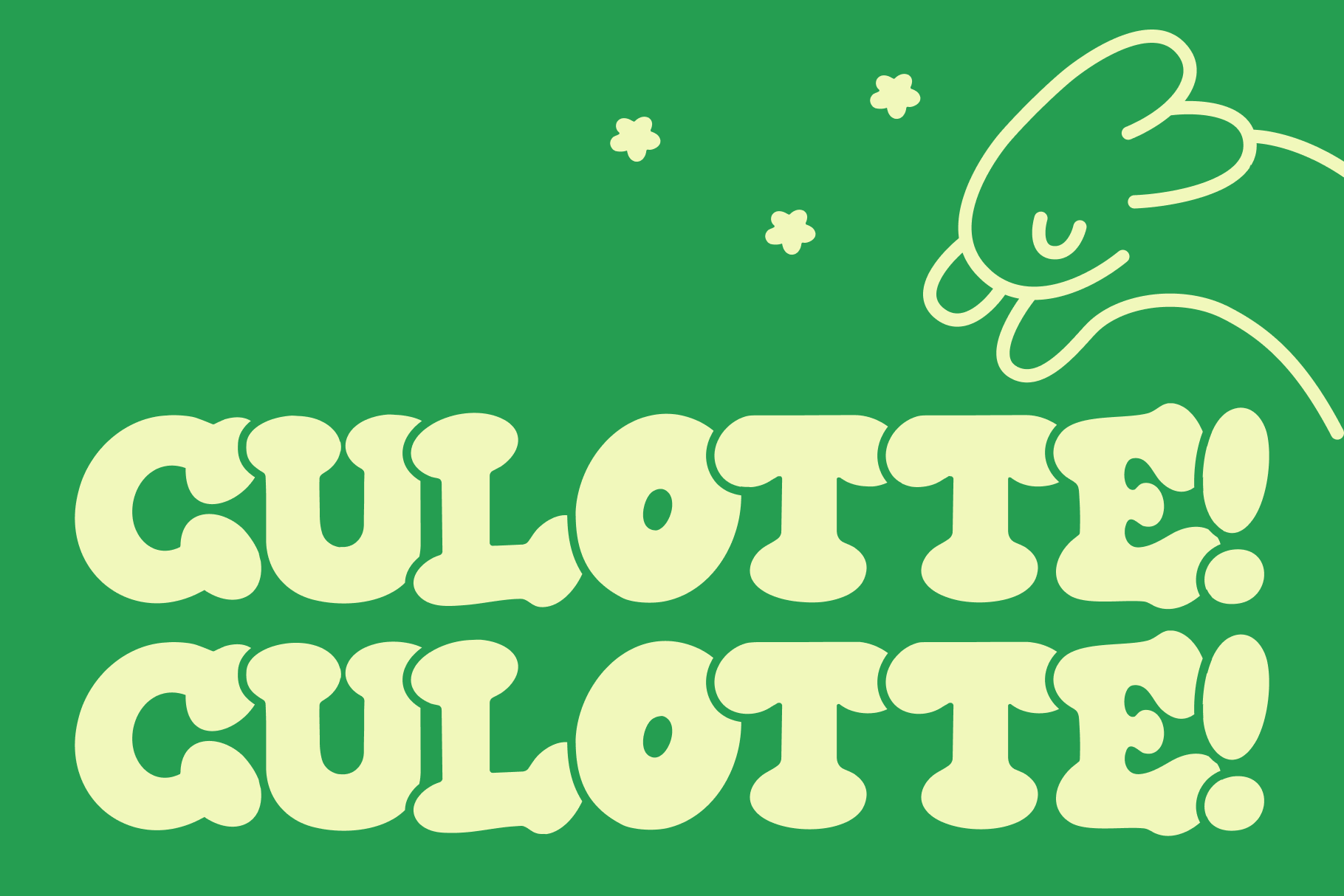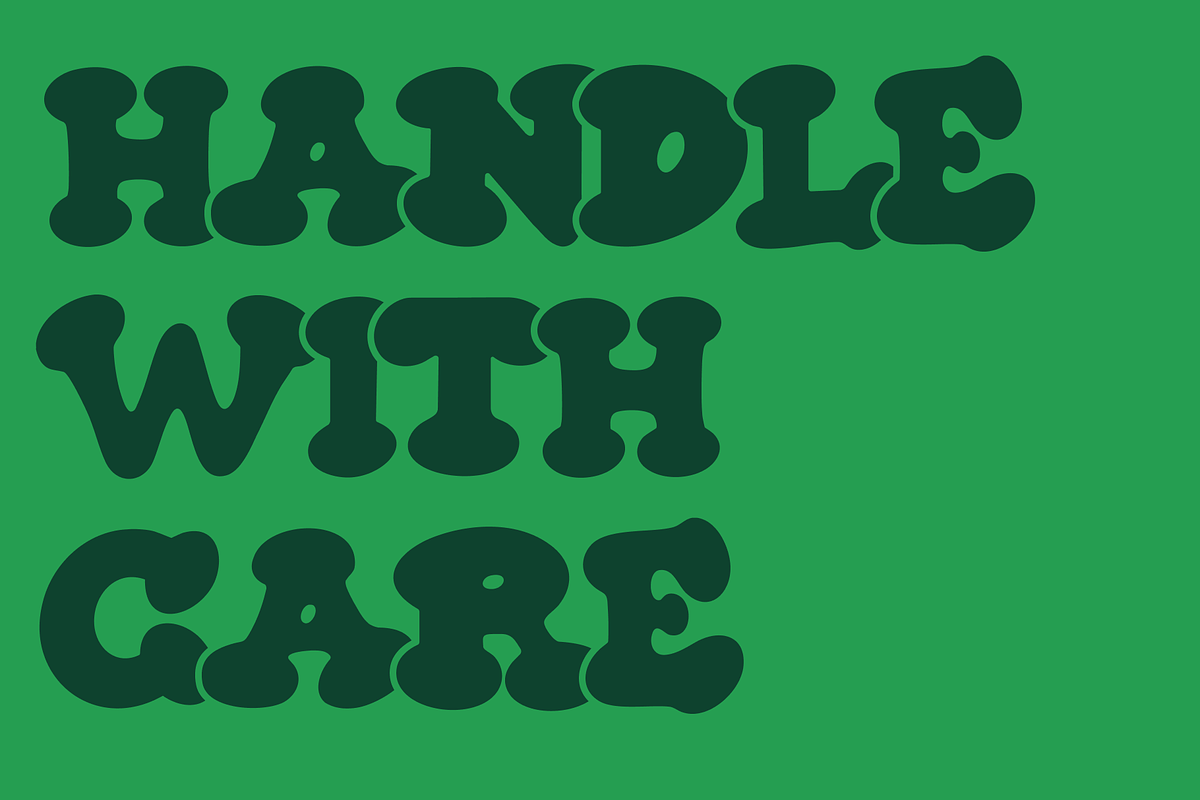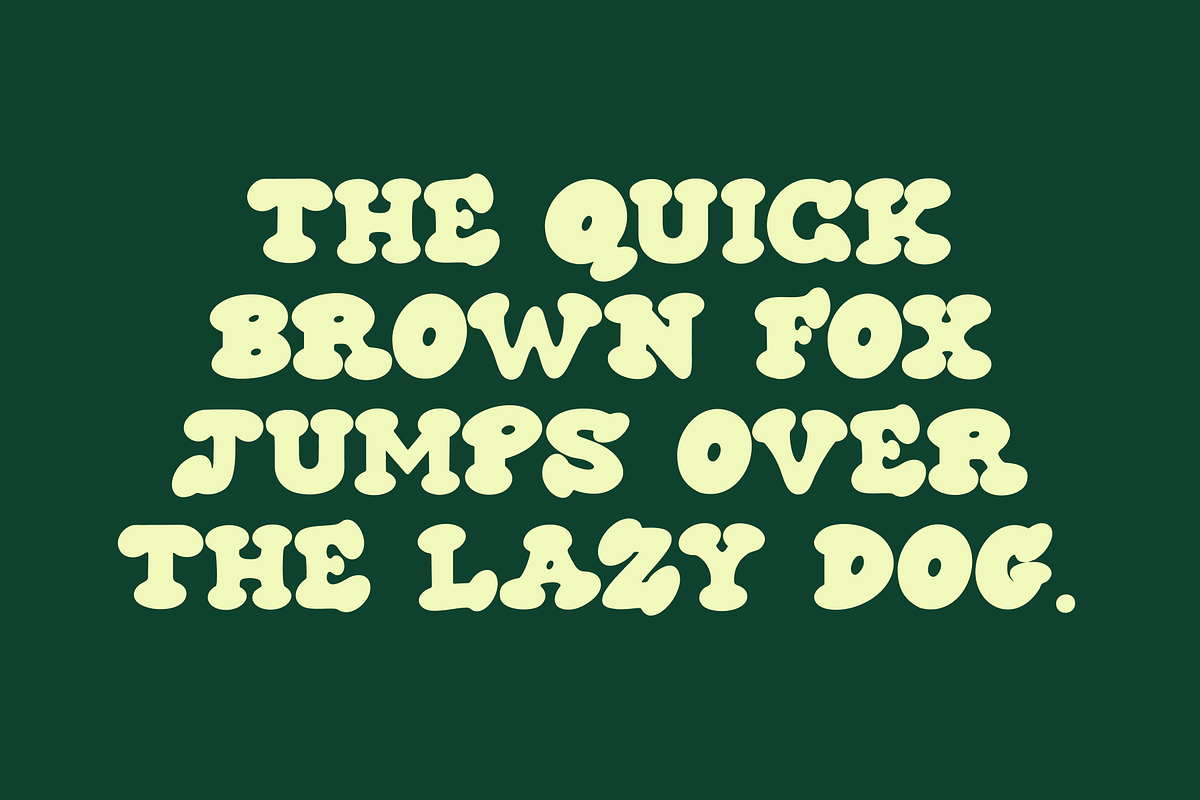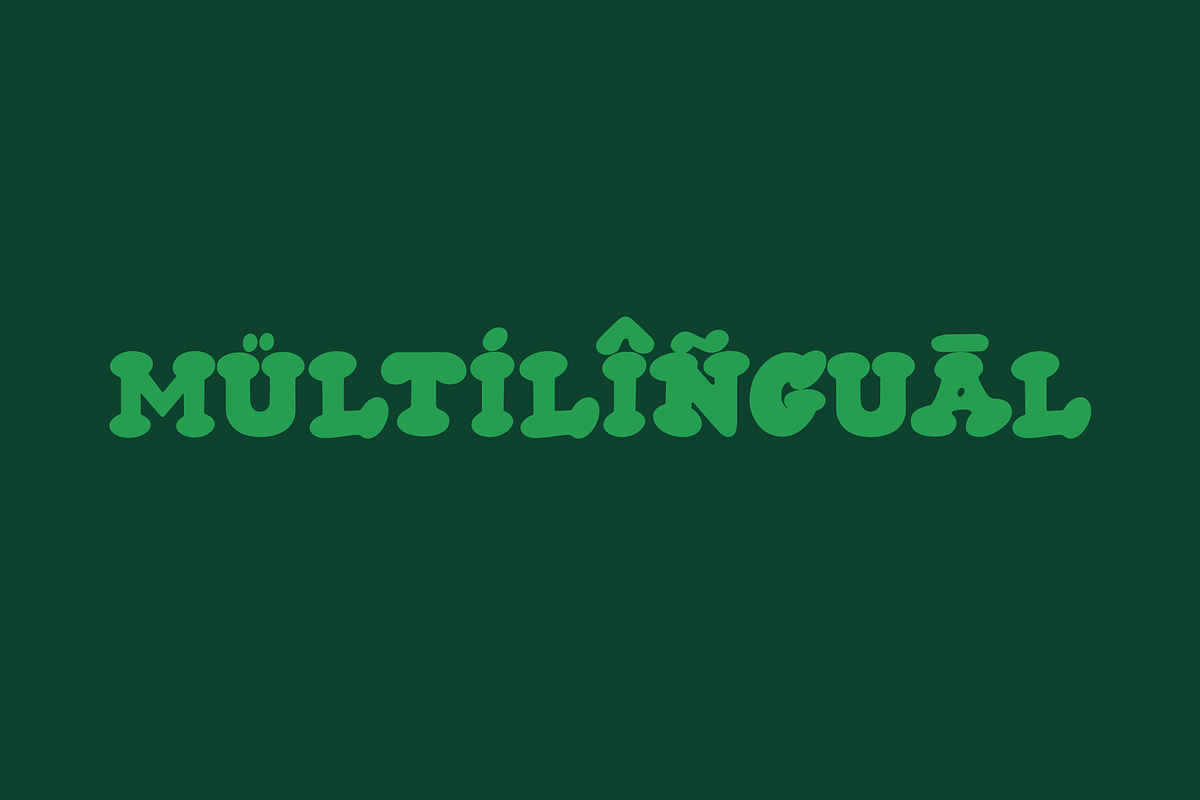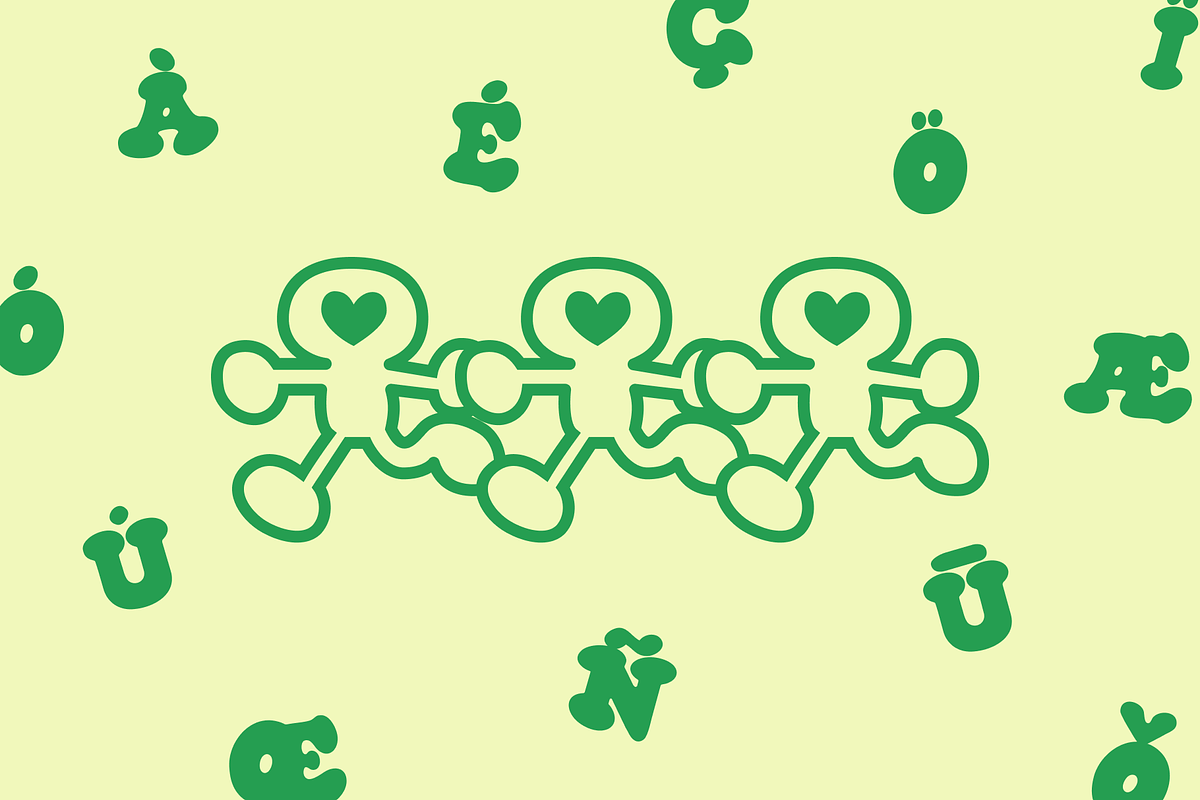
CULOTTE! — hand-drawn serif font
CULOTTE is a bubbly hand-drawn rounded serif typeface, with numbers, common punctuation and ligatures/diacritics. .OTF and .WOFF included. Inspired by a 1970s Hallmark calendar. Enjoy!